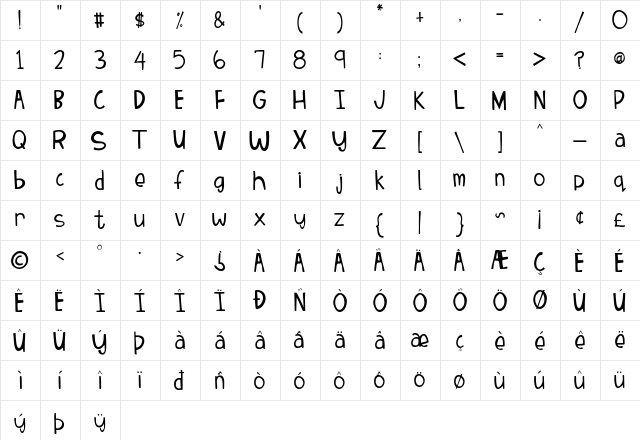
Matchstick Regular
Regular ·  Mindy Armour ·
DesignerMindy Armour
Design Context for Matchstick Typeface
Matchstick takes a measured approach to typography — its balanced proportions and neutral character make it a reliable workhorse for both digital and print work.